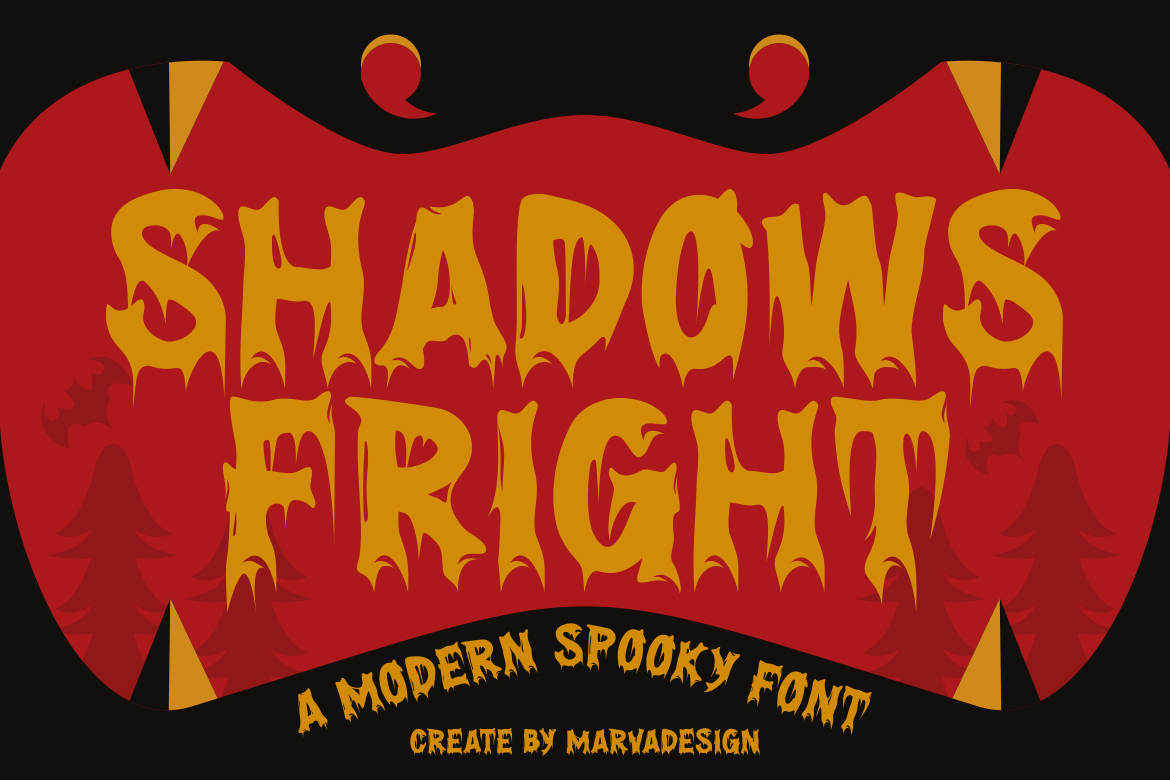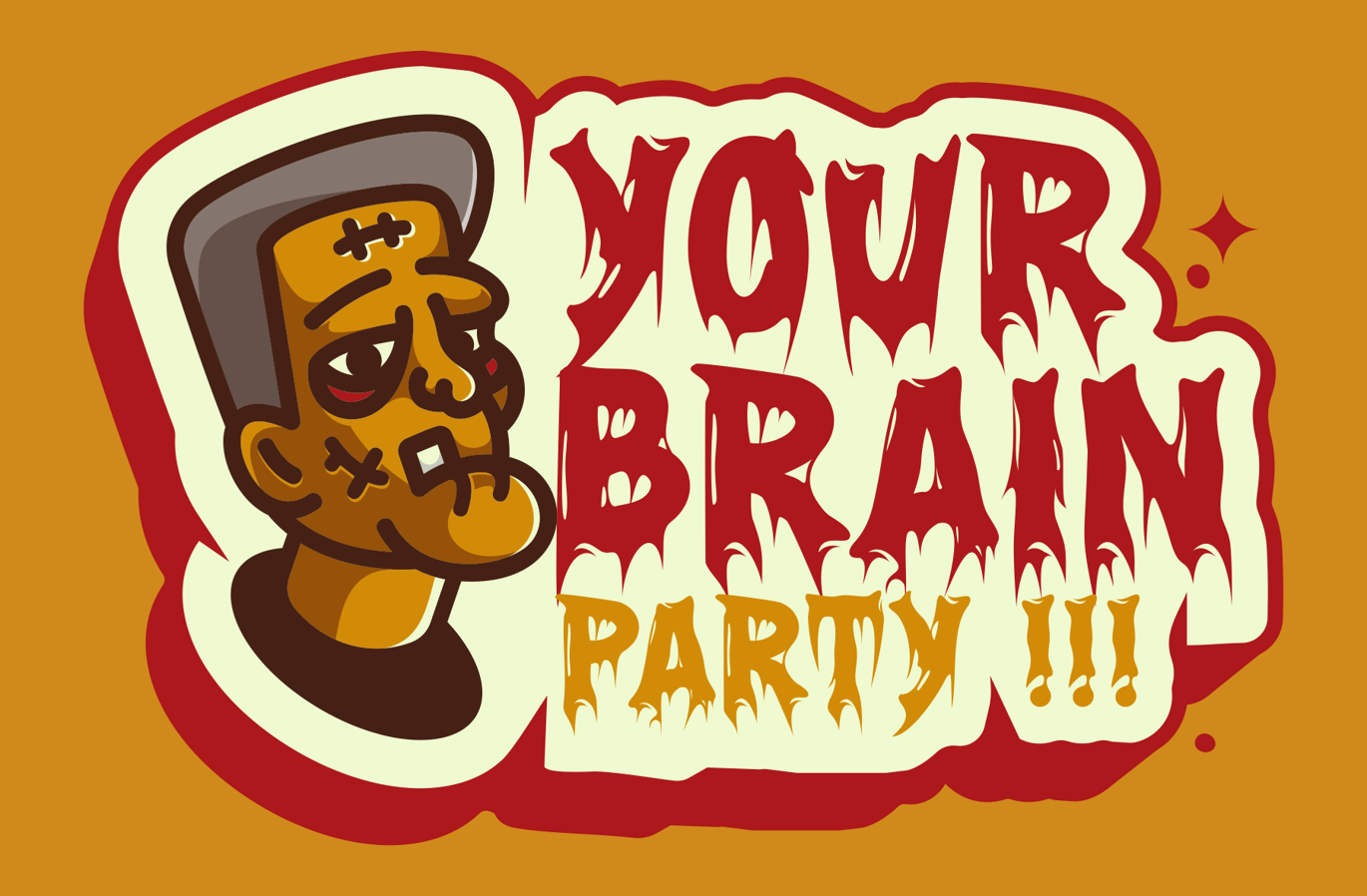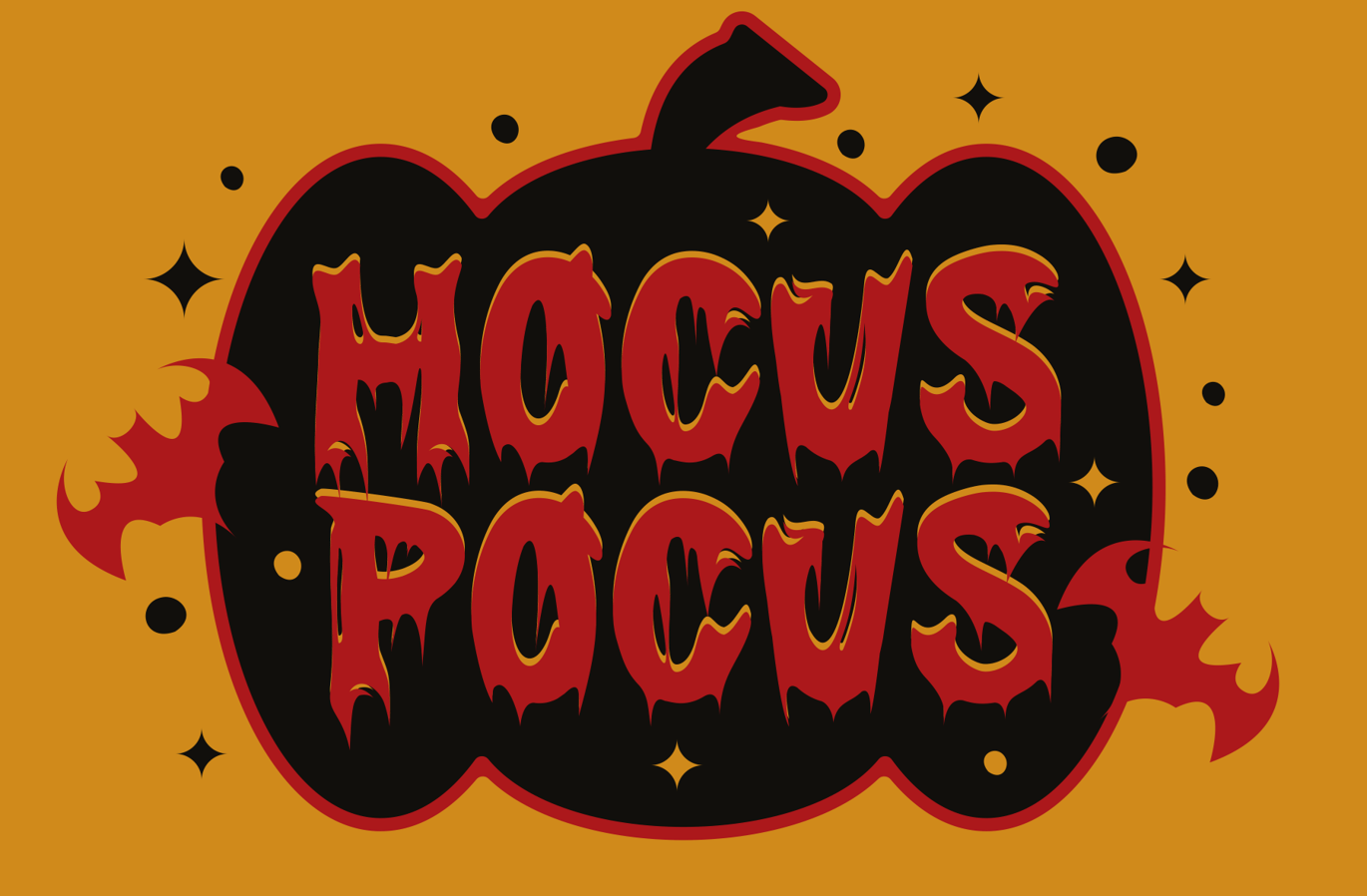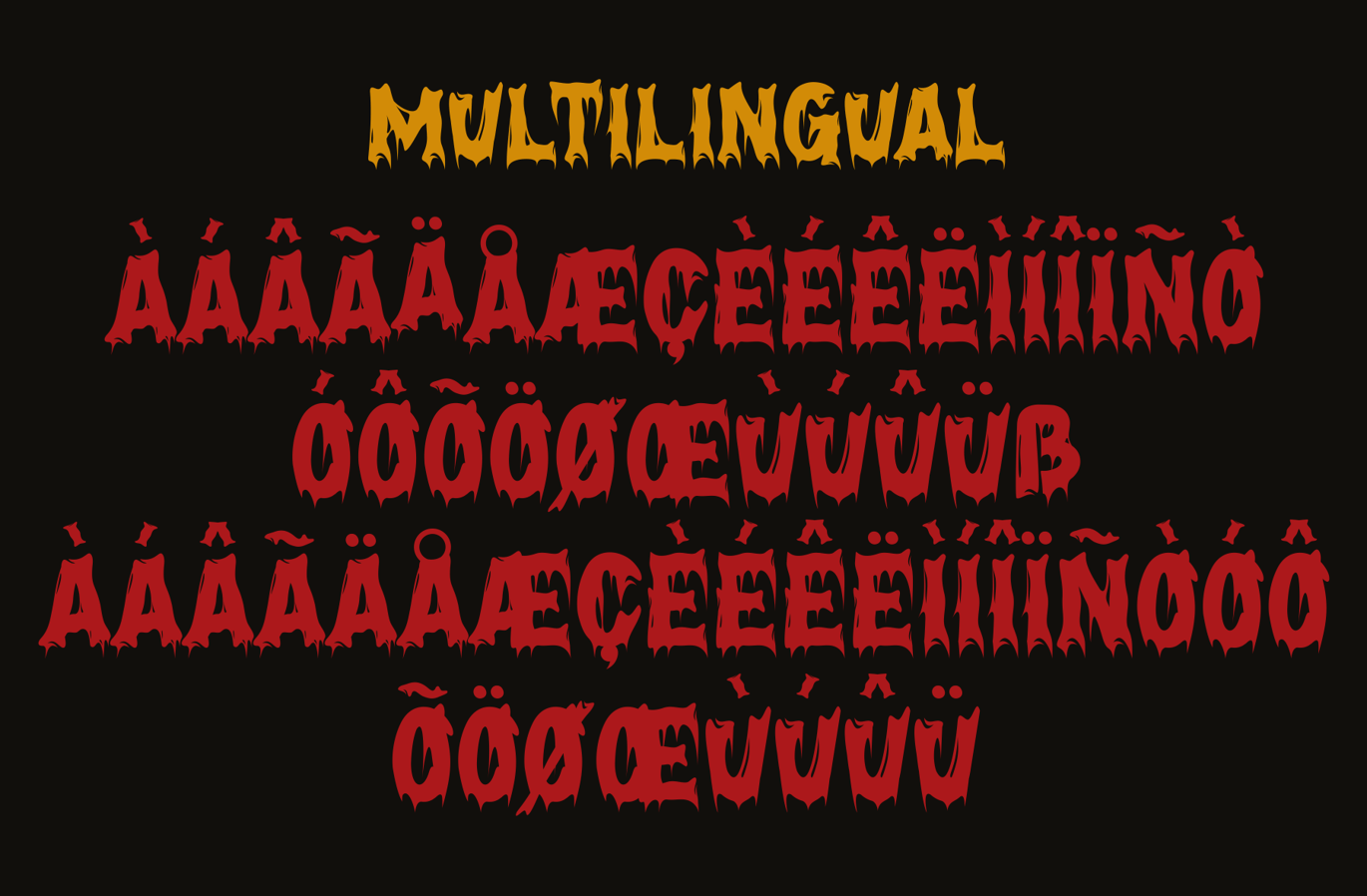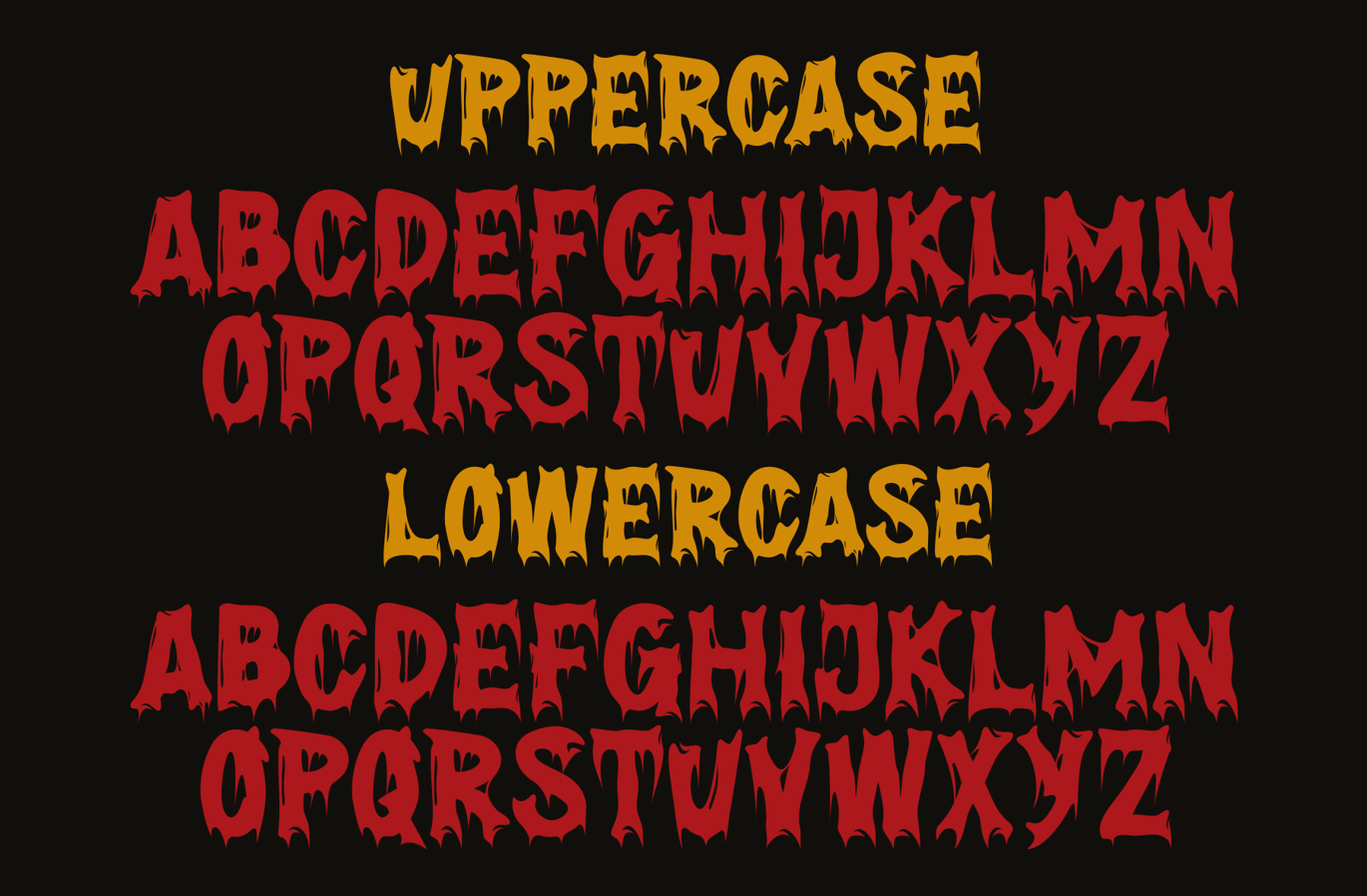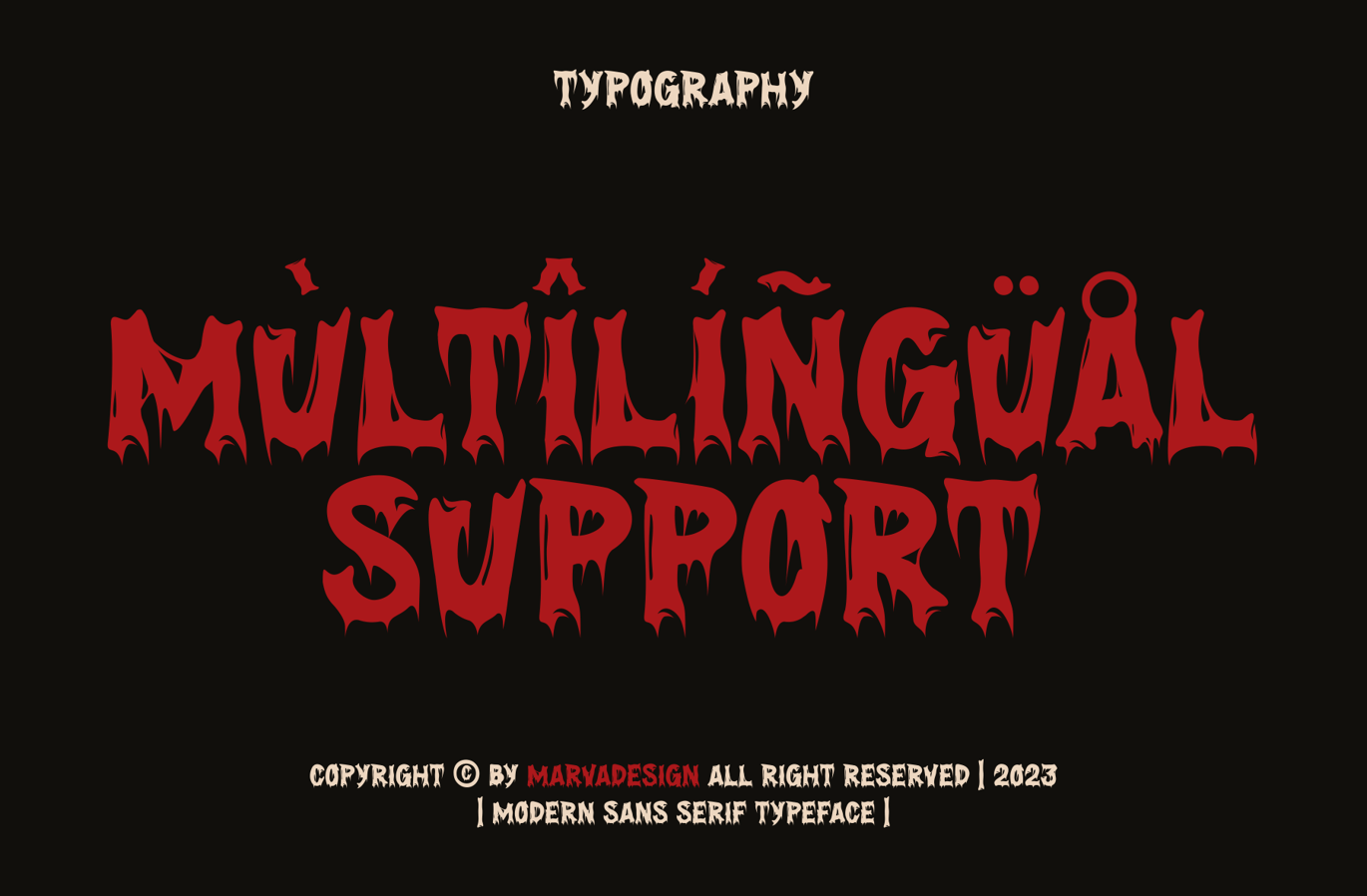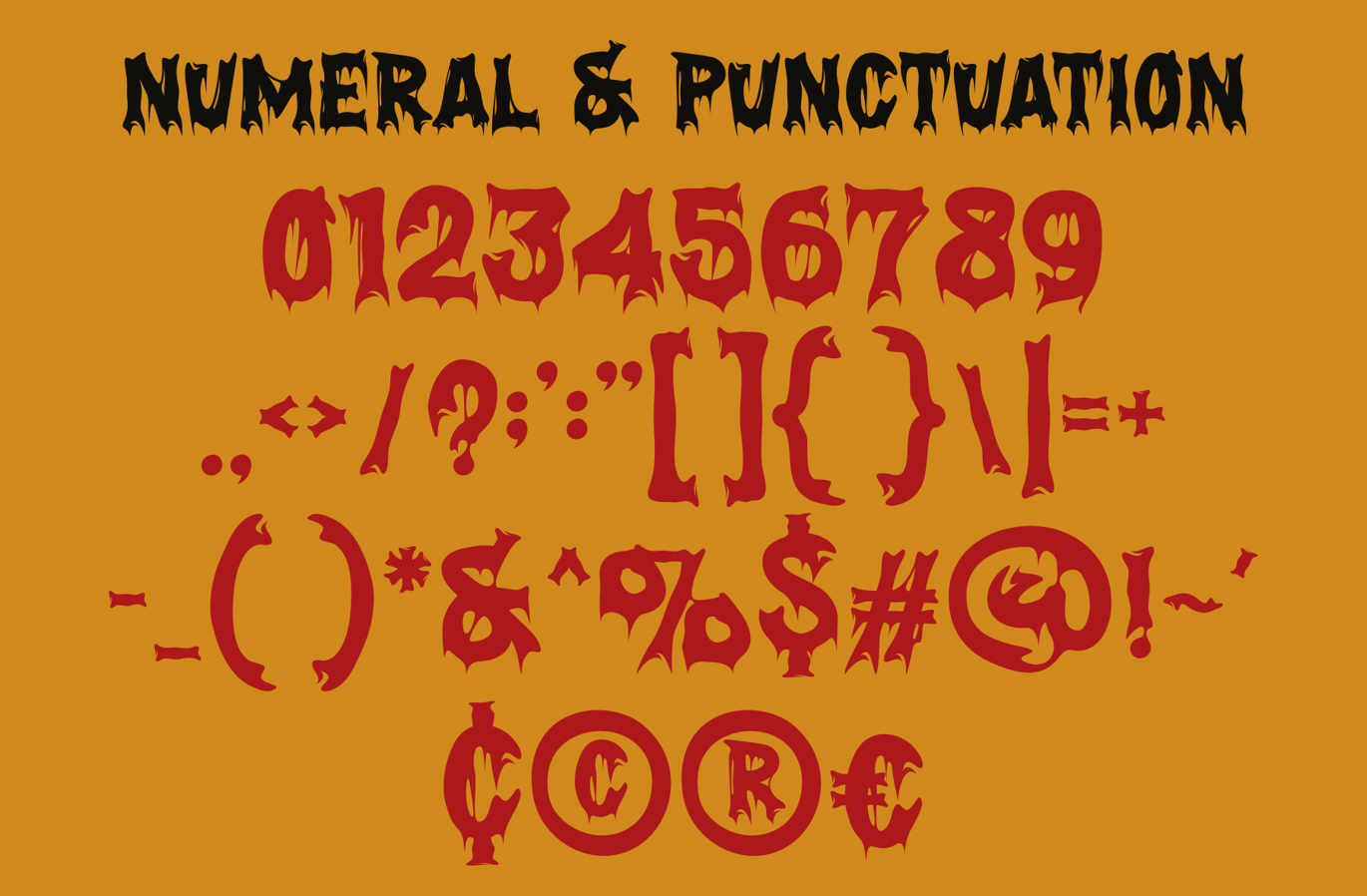
Shadows Fright – A Modern Spooky Font
Introducing our new product Shadows Fright Font – Modern Font
Shadows Fright Font – Modern Font is a bold and authentic display font. The font is suitable for any branding project like logo, Template Design, Product and many more. outstanding in a wide range of contexts.